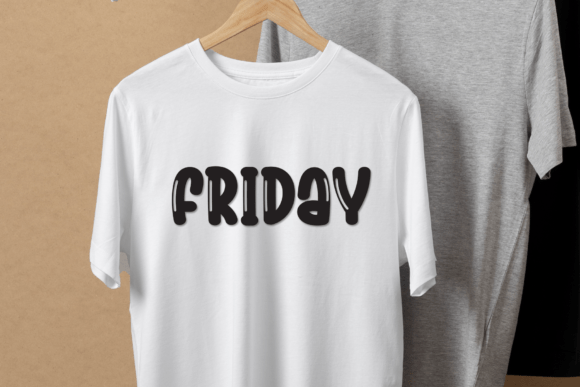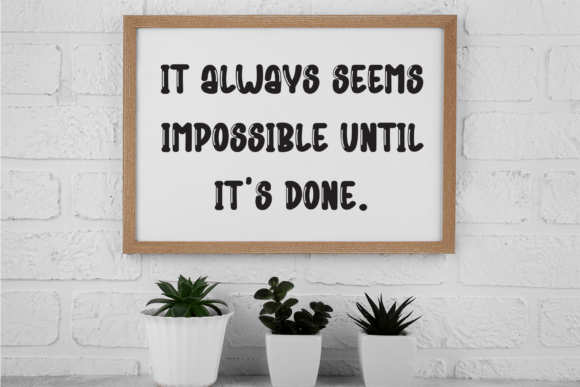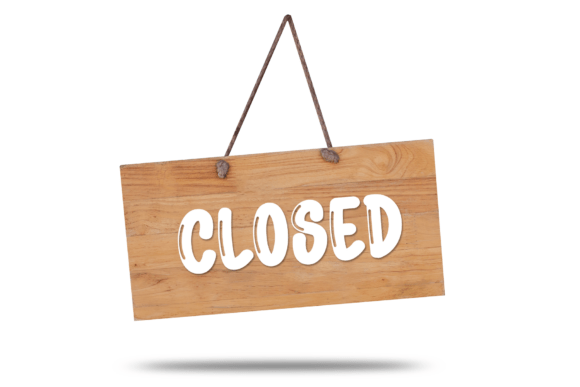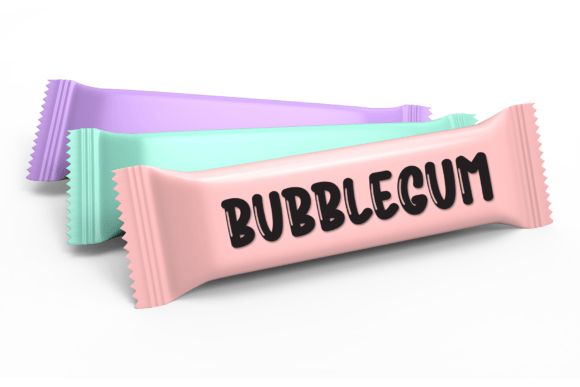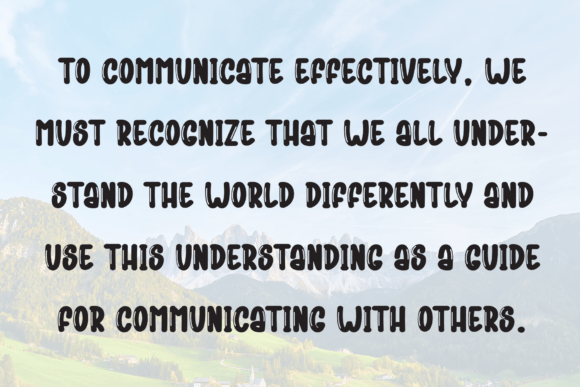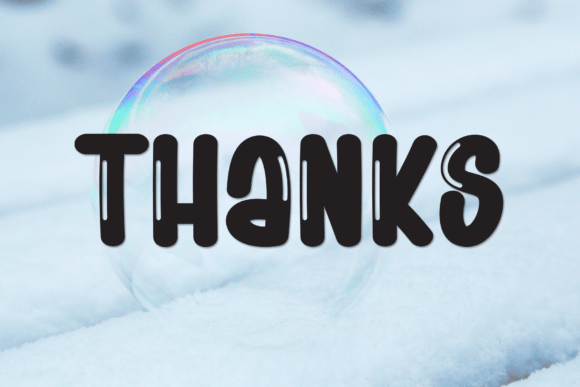
Bubble Winter Font: The Perfect Addition to Your Seasonal Designs
As the winter season approaches, designers and crafters are on the lookout for the perfect typography to add a touch of festivity to their projects. If you’re searching for a font that embodies the spirit of winter while exuding a modern and cheerful vibe, look no further than the Bubble Winter font. This bold and cheerful display typeface is designed to bring a cozy, modern style to your seasonal designs, making it an ideal choice for a wide range of applications.
The Unique Features of Bubble Winter Font
Bubble Winter font boasts thick, rounded letterforms with subtle glossy highlights, expertly mimicking the look of shiny, frost-covered bubbles. This distinctive design element adds a playful and whimsical touch to any project, making it perfect for winter sale banners, children’s holiday books, and festive packaging. The font’s heavy, friendly structure ensures that your headlines remain legible and eye-catching, even against busy snowy backgrounds.
Ideal Applications for Bubble Winter Font
The versatility of Bubble Winter font makes it suitable for a variety of design projects. Some of the ideal applications for this font include:
- Winter Sale Banners: Create eye-catching banners that announce your winter sales and promotions with a playful and festive touch.
- Children’s Holiday Books: Add a touch of whimsy and fun to your children’s holiday books with a font that’s both playful and engaging.
- Festive Packaging: Give your festive packaging a modern and cheerful makeover with a font that’s sure to stand out on store shelves.
- Merry Christmas Posters: Create festive posters that spread holiday cheer with a font that’s both bold and cheerful.
- Winter-Themed Logos: Develop a winter-themed logo that captures the spirit of the season with a font that’s both modern and playful.
Why Choose Bubble Winter Font?
So, why should you choose Bubble Winter font for your seasonal designs? Here are just a few reasons:
- Unique and Playful Design: The font’s distinctive design elements, such as the glossy highlights and rounded letterforms, add a playful and whimsical touch to any project.
- High-Energy Aesthetic: The Bubble Winter font provides a fun and high-energy aesthetic that’s sure to warm up any cold-weather project.
- Legibility: The font’s heavy, friendly structure ensures that your headlines remain legible and eye-catching, even against busy backgrounds.
- Versatility: The Bubble Winter font is suitable for a wide range of design projects, from winter sale banners to children’s holiday books.
Tips for Using Bubble Winter Font
To get the most out of Bubble Winter font, here are a few tips to keep in mind:
- Use it as a Display Font: The Bubble Winter font is designed to be used as a display font, so use it to add a bold and cheerful touch to your headlines and titles.
- Experiment with Colors: The font’s glossy highlights and rounded letterforms look great in a variety of colors, so don’t be afraid to experiment and find the perfect hue for your project.
- Pair it with Other Fonts: The Bubble Winter font pairs well with a variety of other fonts, so feel free to experiment and find the perfect combination for your project.